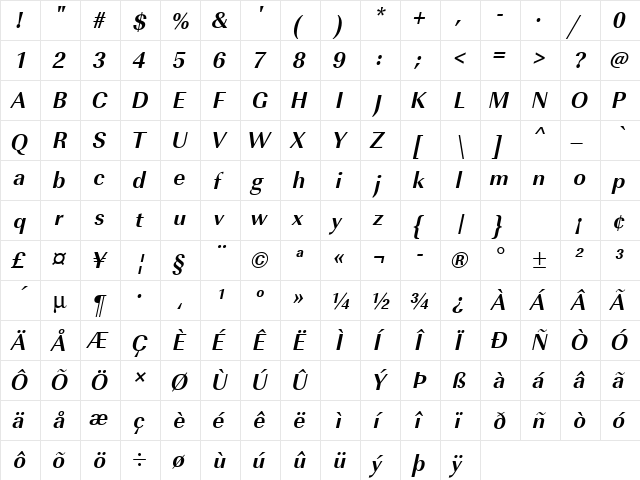
URWImperialTNar Bold Oblique
Design Context for URWImperialTNar Typeface
URWImperialTNar is a composed and adaptable typeface that performs quietly and consistently across a wide range of design contexts. The dynamic lean of this cut emphasises speed and emphasis in any layout. Its bold stroke weight gives it real presence on the page.